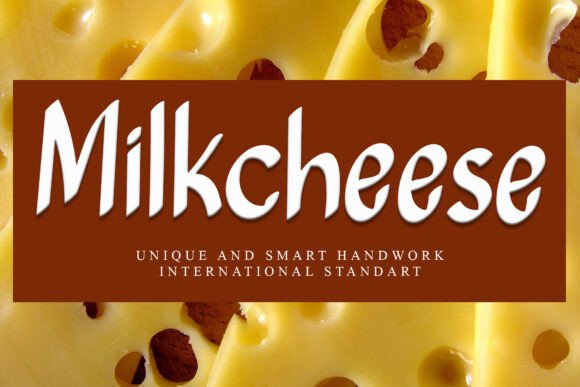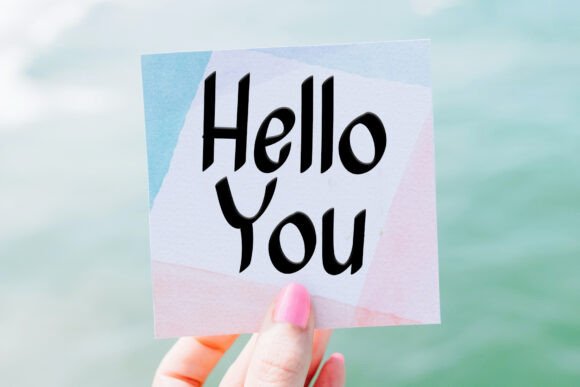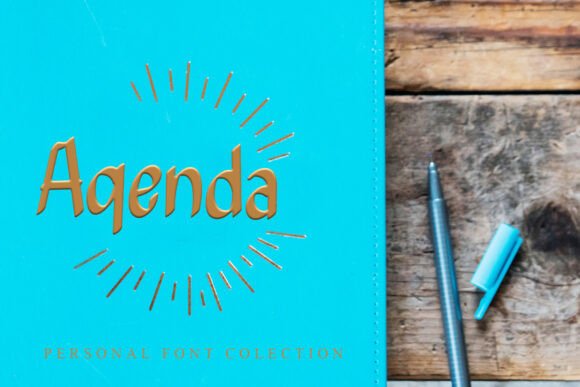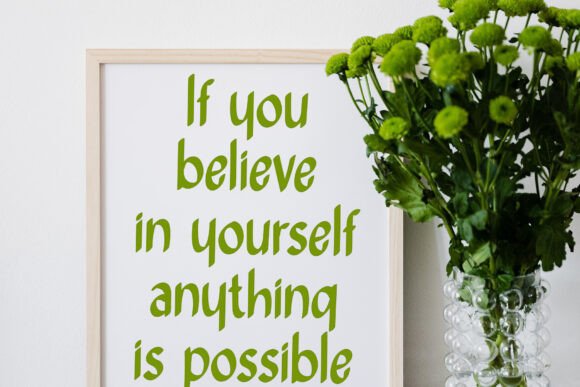
From logos to headlines, the Milkcheese Font is the perfect choice for making a lasting impression. Milkcheese is a lovely and timeless handwritten font. It is the best choice for creating eye catching logos, branding and quotes. Every letter has a unique and beautiful touch, which will make your design come alive!
Milkcheese excels in applications requiring a touch of handcrafted charm. It’s ideal for short headlines, logos, and branding elements where its individual letterforms can shine. Consider using it for packaging design, short quotes on social media, or even wedding invitations. However, avoid using Milkcheese for large blocks of body text or UI elements; its informal nature and varying letter heights make extended readability difficult.
Its friendly, slightly whimsical personality pairs well with clean sans-serif fonts like Open Sans for a balanced contrast, or a more geometric sans-serif like Montserrat for a modern feel. For a more luxurious look, consider pairing it with a classic serif like Garamond or a delicate script font, but use the script sparingly as a complement to Milkcheese’s already expressive nature.
The overall feel of Milkcheese is approachable and inviting, making it a good fit for brands focused on artisanal goods, cafes, boutiques, or any project emphasizing warmth and authenticity.